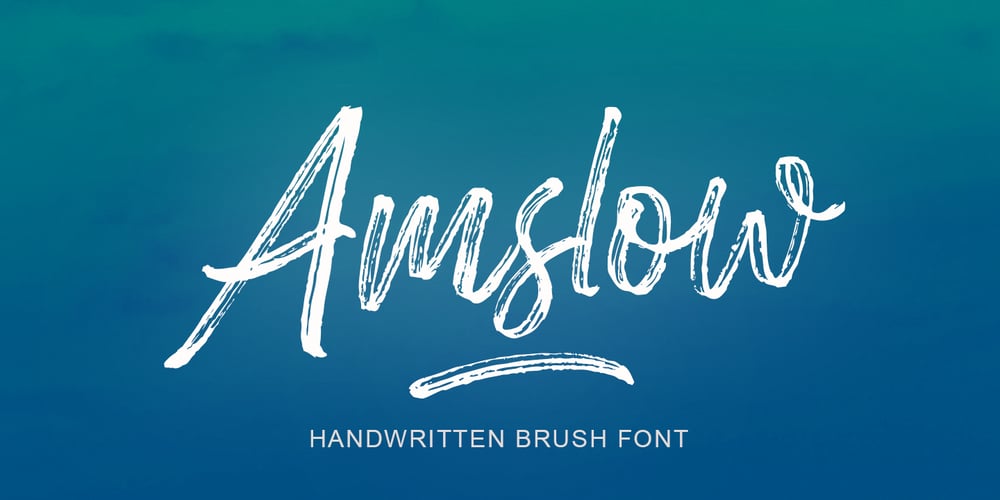
Amslow Brush Font Family was designed by Yur Lis and published by Stripes Studio. Amslow Brush contains 2 styles and family package options. Amslow a new font that is brushed is very attractive with a natural, detailed and perfect texture, also has an additional Amslow Underlines.Perfect for brand projects, logos, product packaging, posters, invitations, greeting cards, news, blogs, everything including personal charm etc.